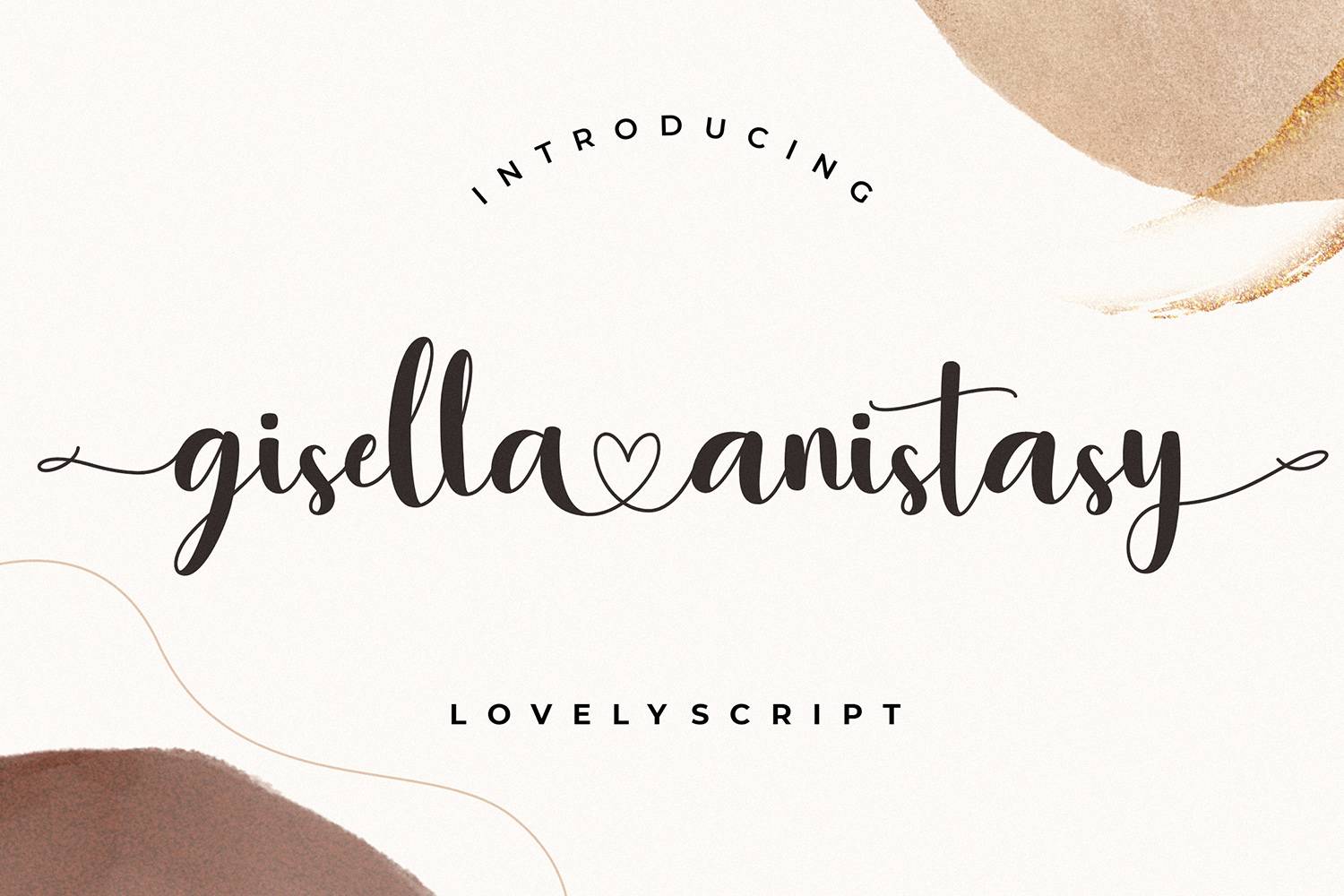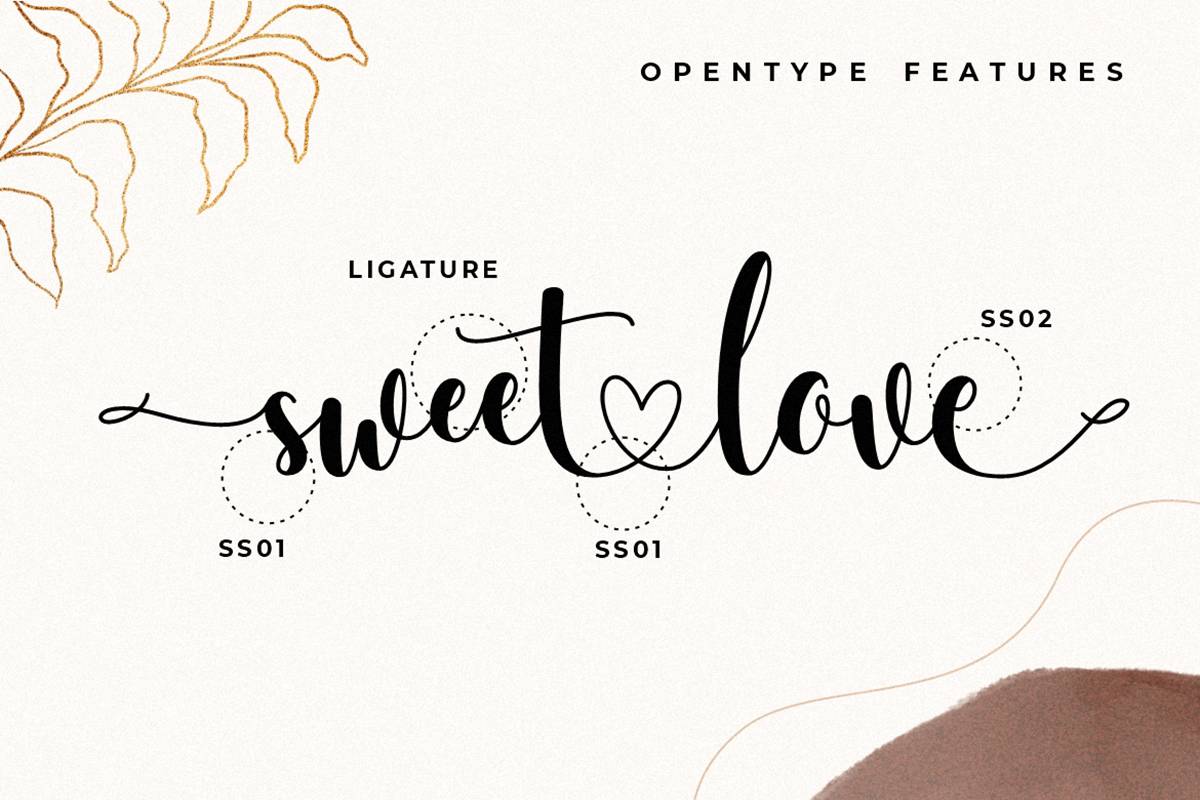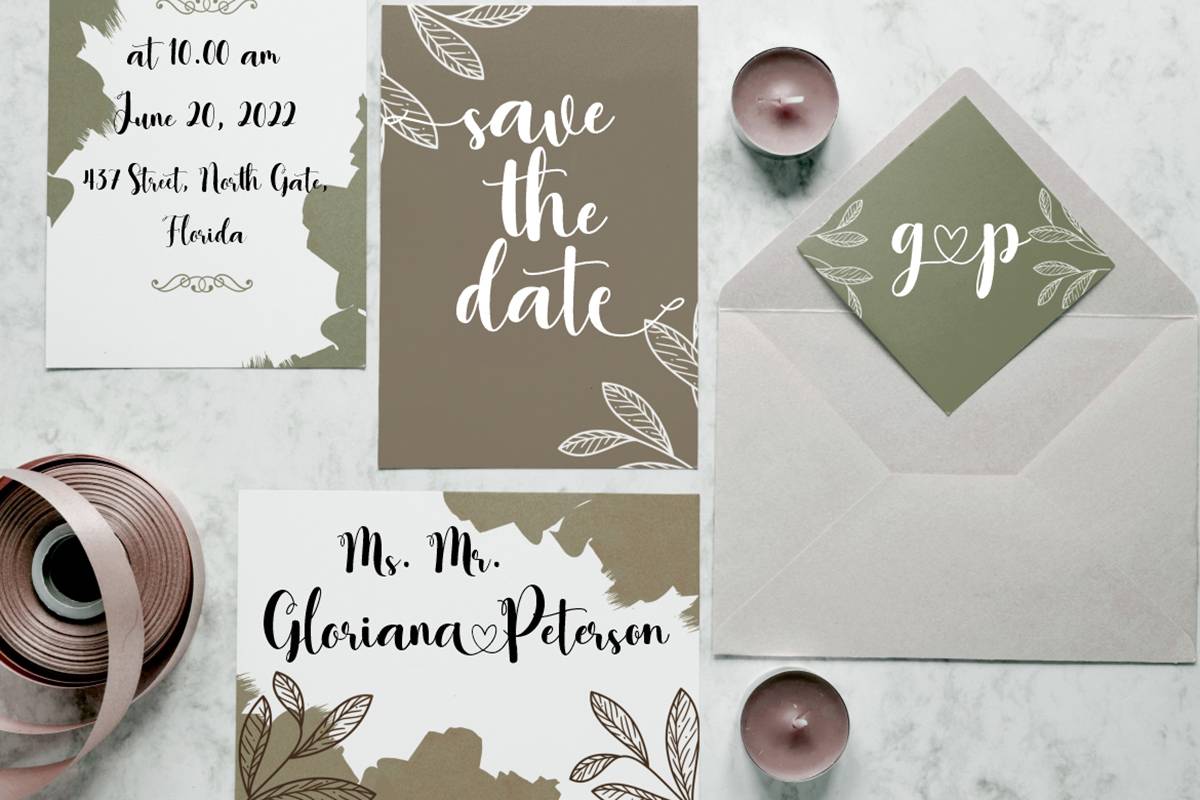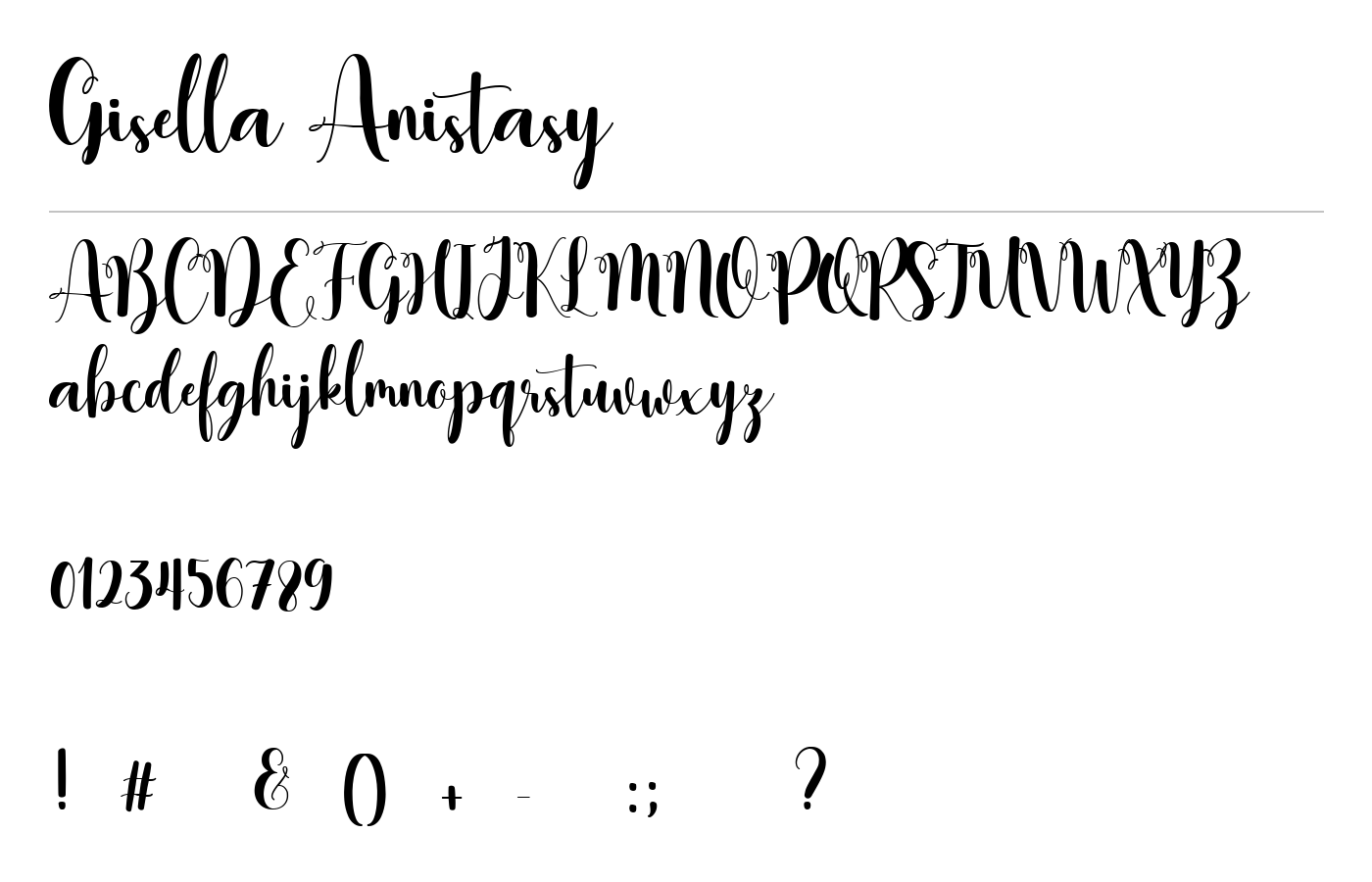
Gisella Anistasy is an elegant script font featuring fluid, hand-lettered strokes with a playful yet refined personality. Its smooth curves, varied stroke widths, and delicate swashes make it perfect for adding a stylish, personal touch to invitations, branding, and headlines where a warm, creative aesthetic is desired. This font stands out in fashion, beauty, or lifestyle projects that benefit from a sophisticated yet approachable feel.
Gisella Anistasy Font
About Gisella Anistasy Font